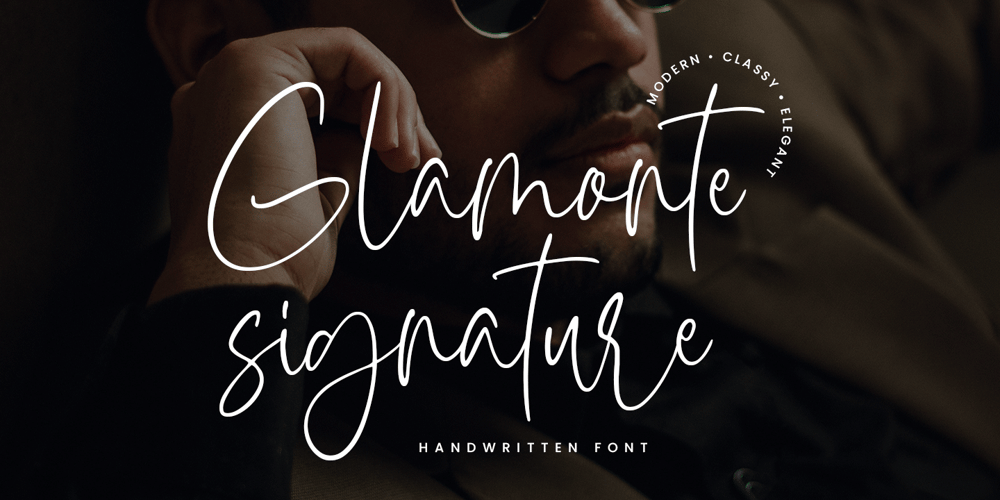
Glamonte Signature Font Family was designed by Novitasari Romli and published by Novitype. Glamonte Signature contains 1 styles and family package options. Introducing Glamonte Signature. A combination of signature and handwriting style that visualizes unique and classy looks. This font has natural, and feminine vibes, so it is suitable for use in media that requires an elegant concept & minimalist.You can use Glamonte Signature for weddings, invitations, cards, short quotes, and many more! This font consists of stylistic alternates, ligatures, and multilingual support.